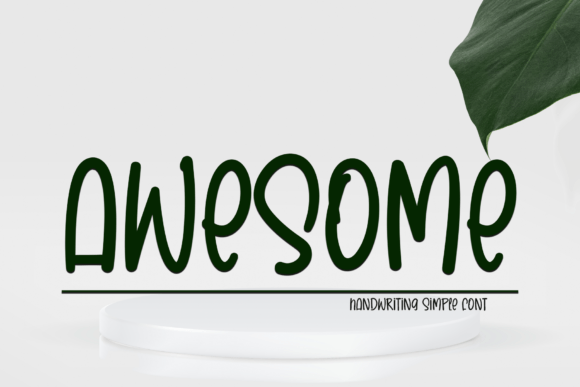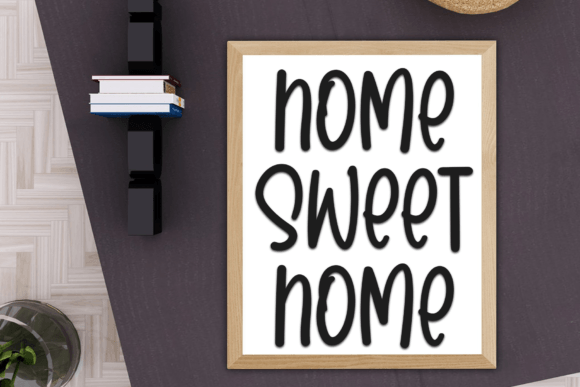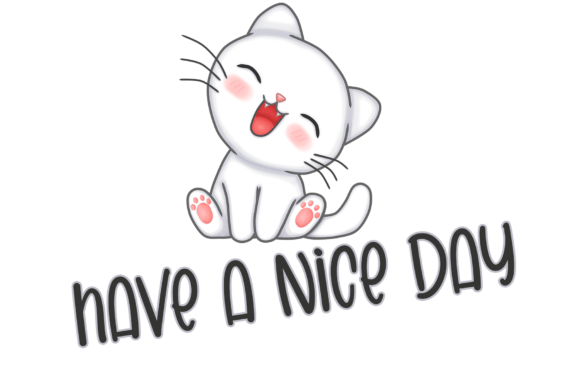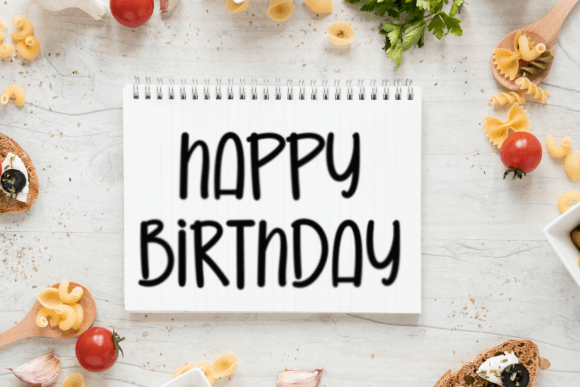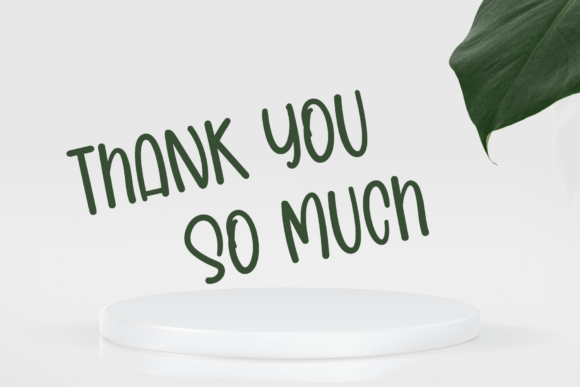
Awesome Font
About Awesome Font
“Awesome” is an enchanting handwritten font that brings a touch of magic to your creative projects. This versatile font spans a wide spectrum of applications, making it suitable for a variety of design purposes, from greeting cards to headlines. It is guaranteed to infuse a romantic and captivating ambiance into your next project.
The font’s enchanting design exudes charm and allure, making it ideal for conveying a romantic and intimate atmosphere. Whether you’re creating greeting cards, designing eye-catching headlines, or working on any other design project, “Awesome” effortlessly enhances your creations with its enchanting and versatile typography.
“Awesome” is a font that captures the essence of romance and creativity, making it a valuable asset for designers and creators seeking to add a touch of magic to their work.
In summary, “Awesome” is more than just a font; it’s a creative tool that brings a sense of enchantment to your design endeavors. Its captivating design, combined with its versatility, makes it a valuable addition to your font collection. Embrace “Awesome” and experience how it elevates your creative projects with its romantic and versatile typography.